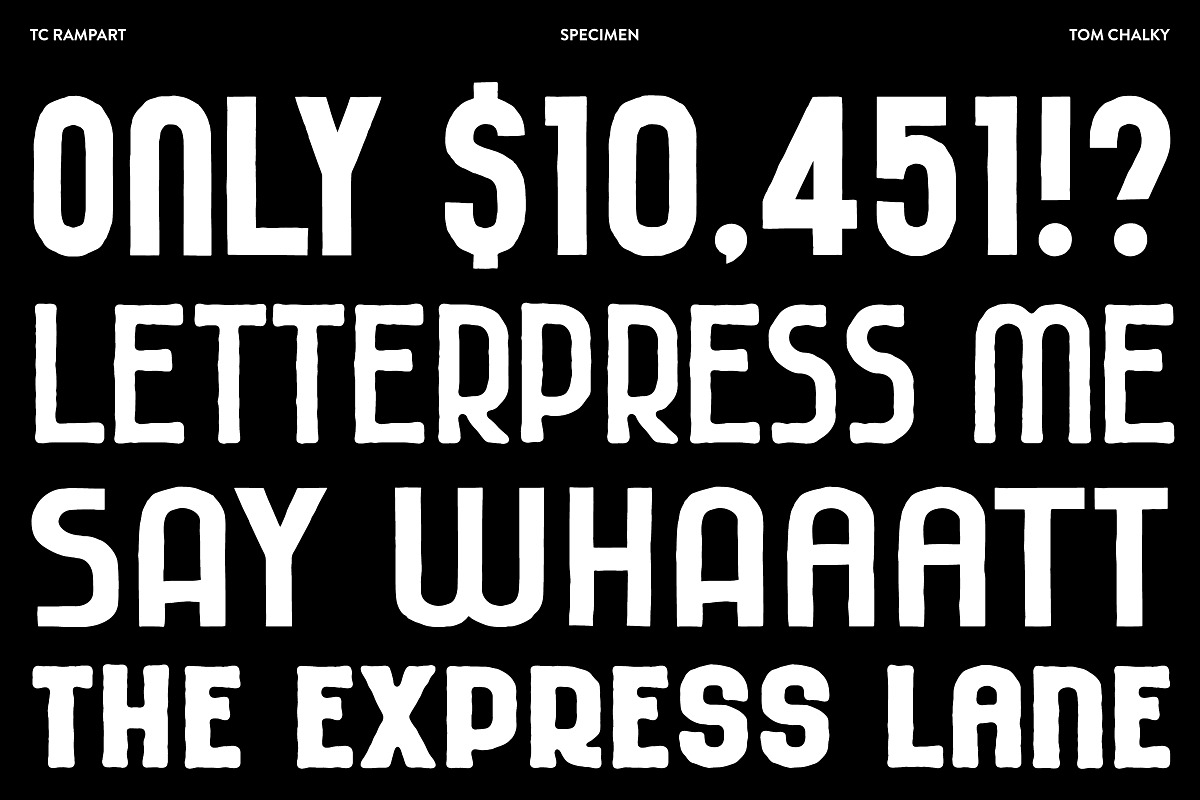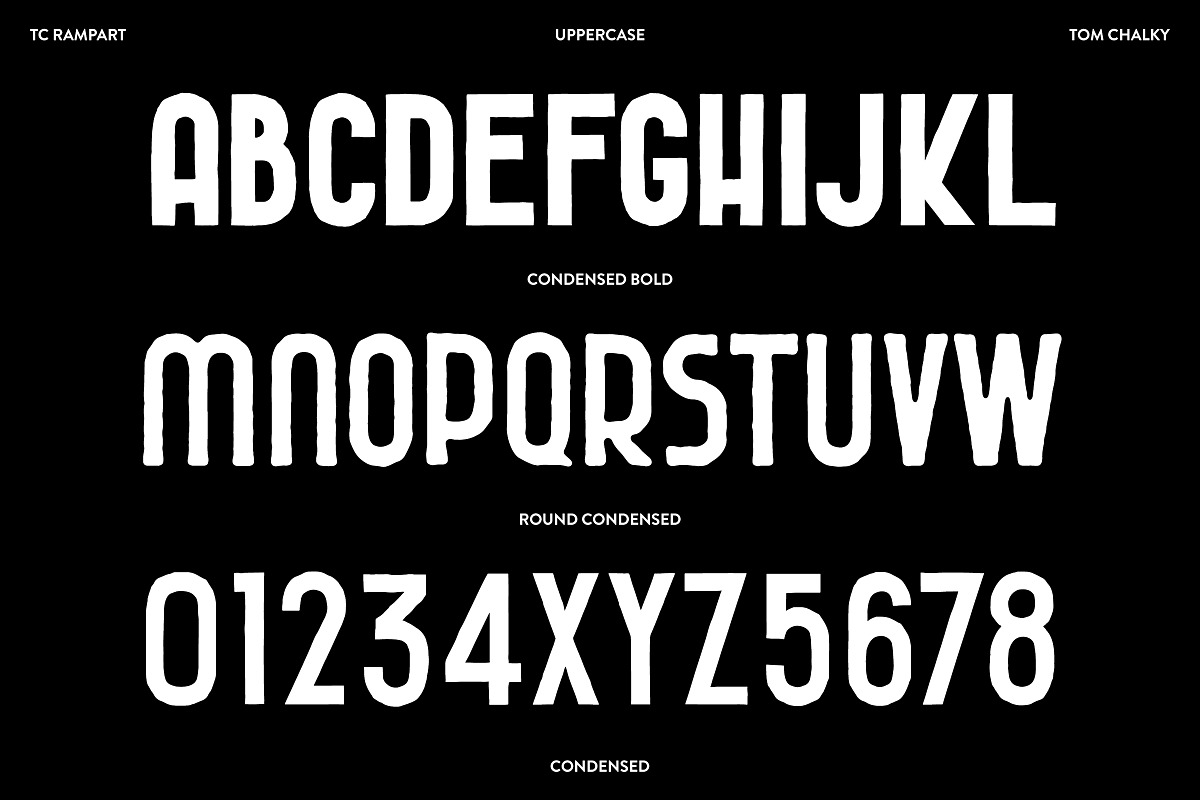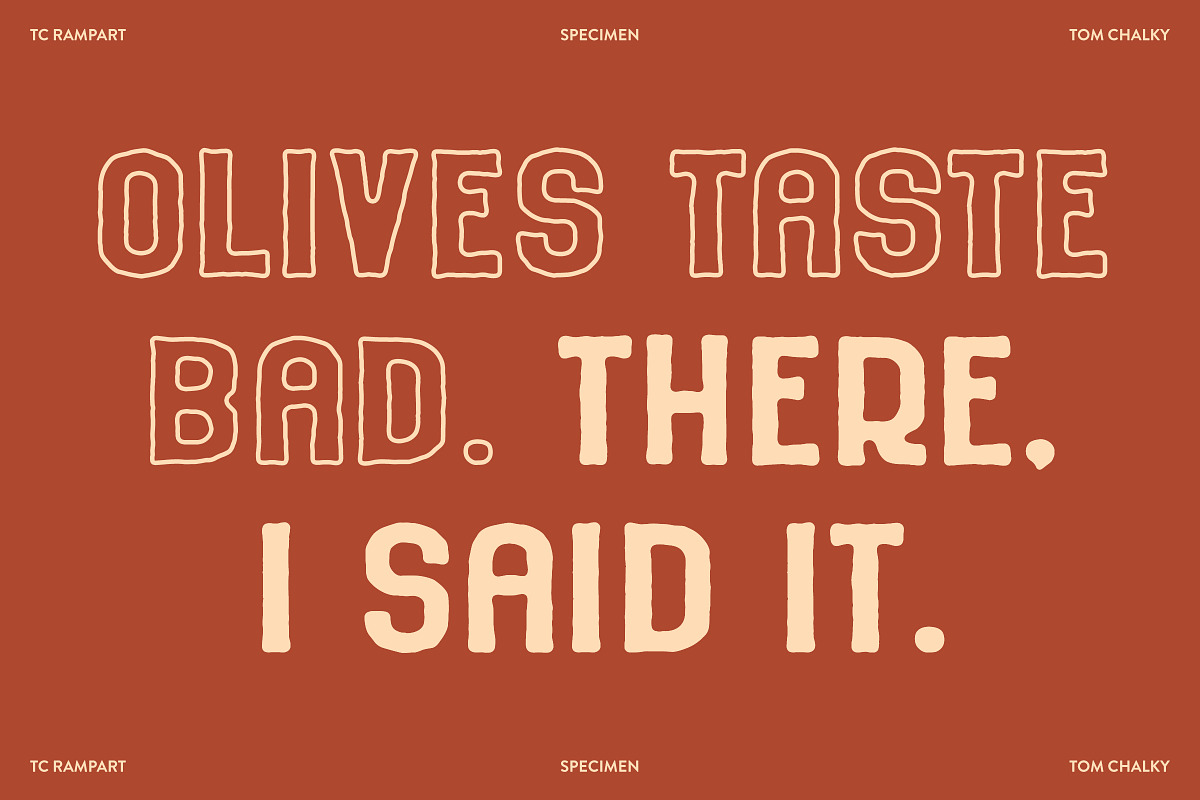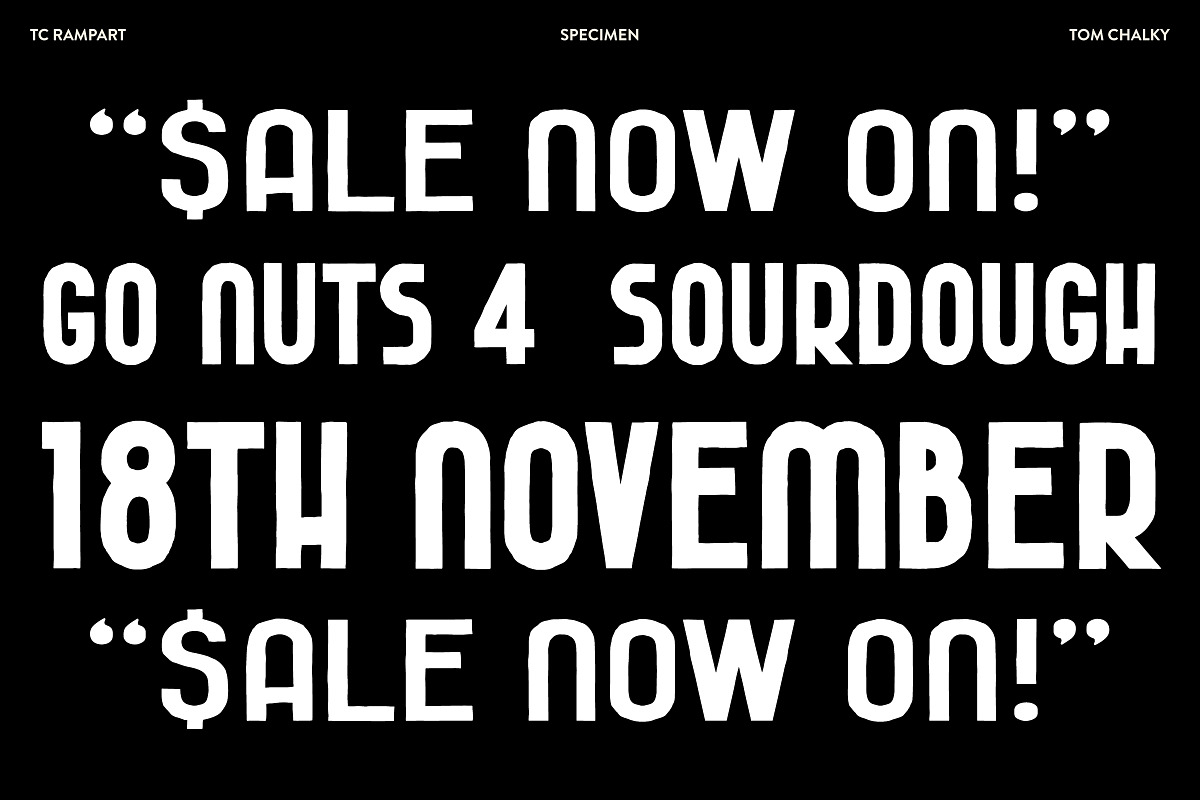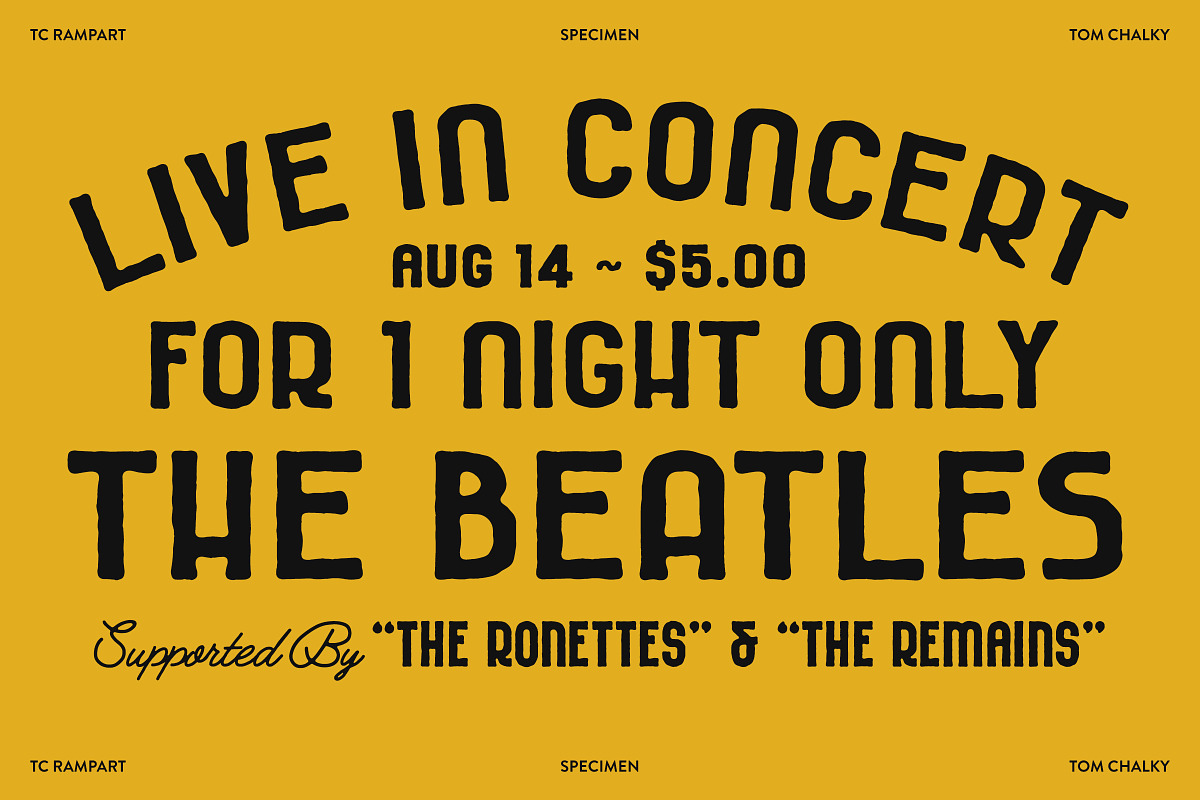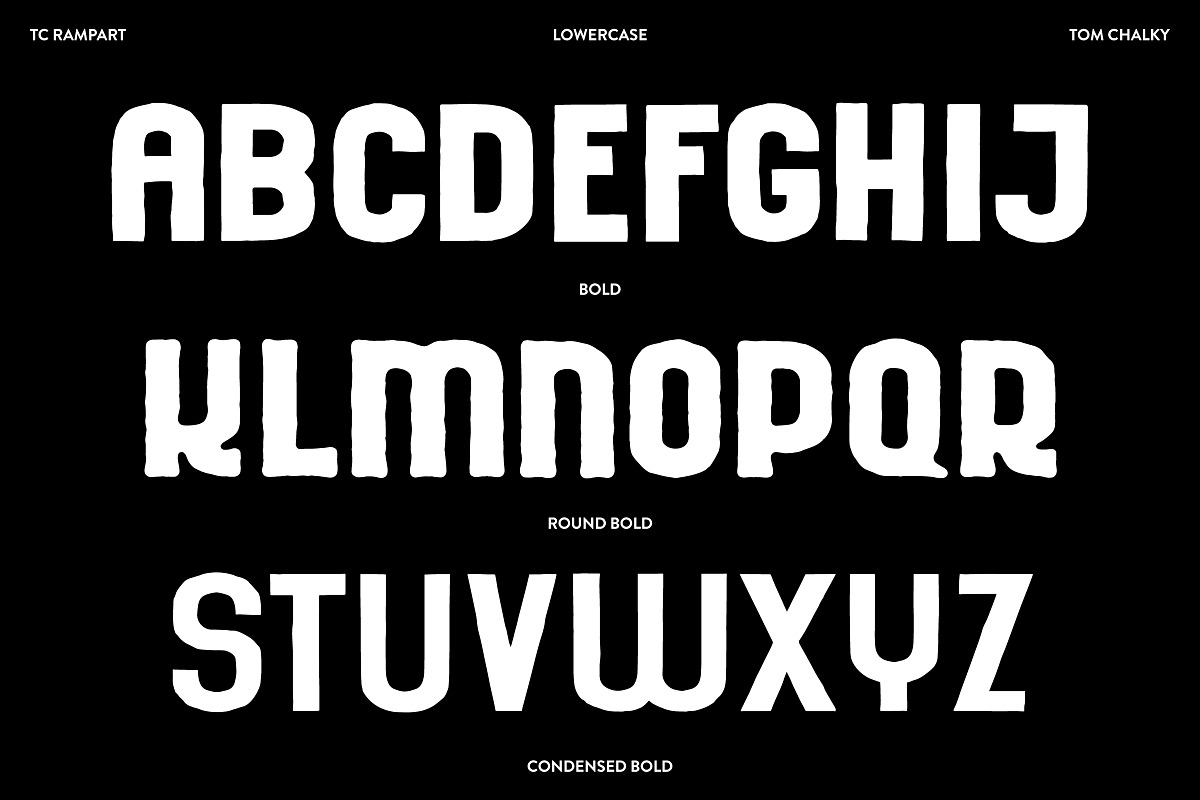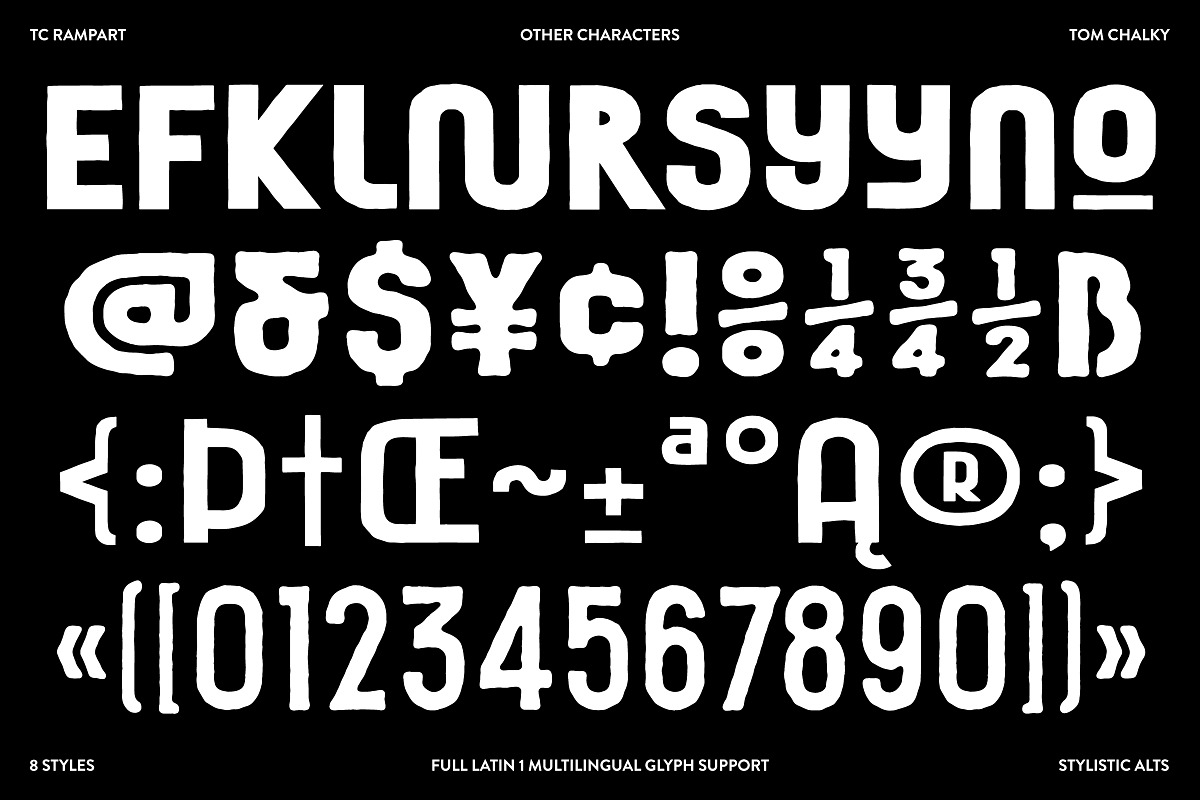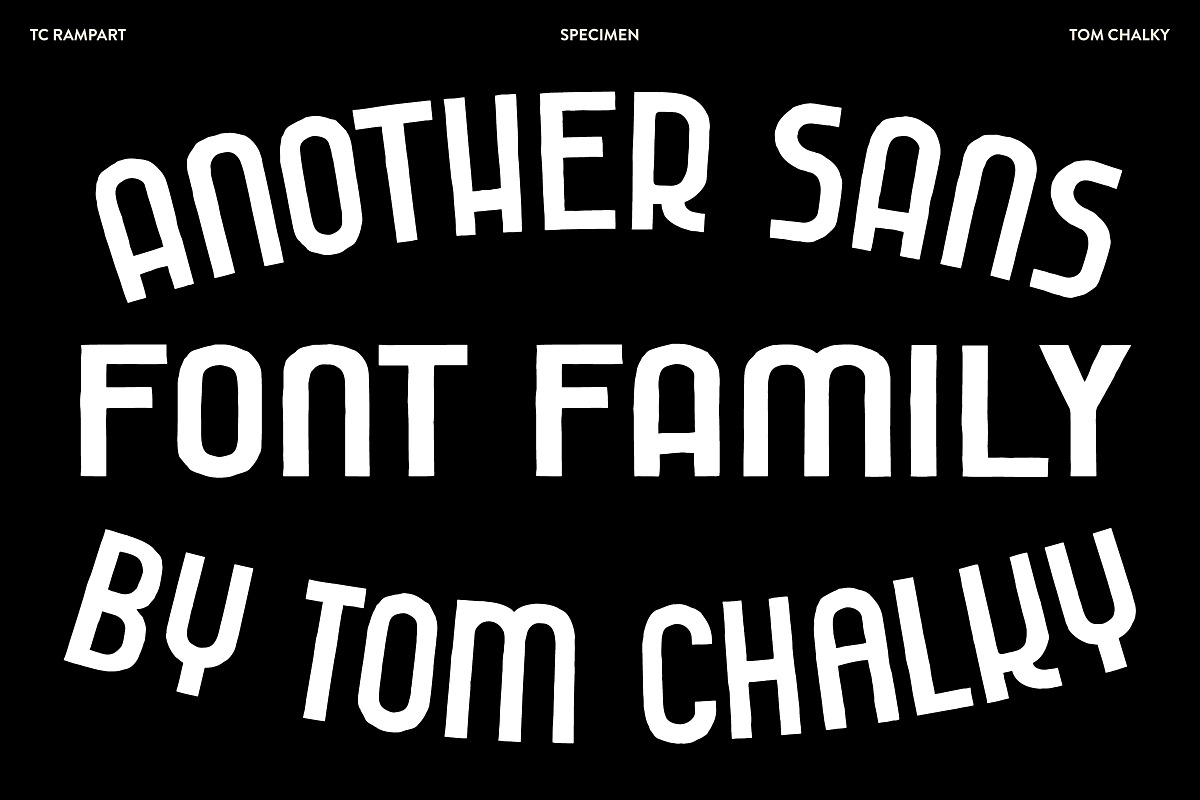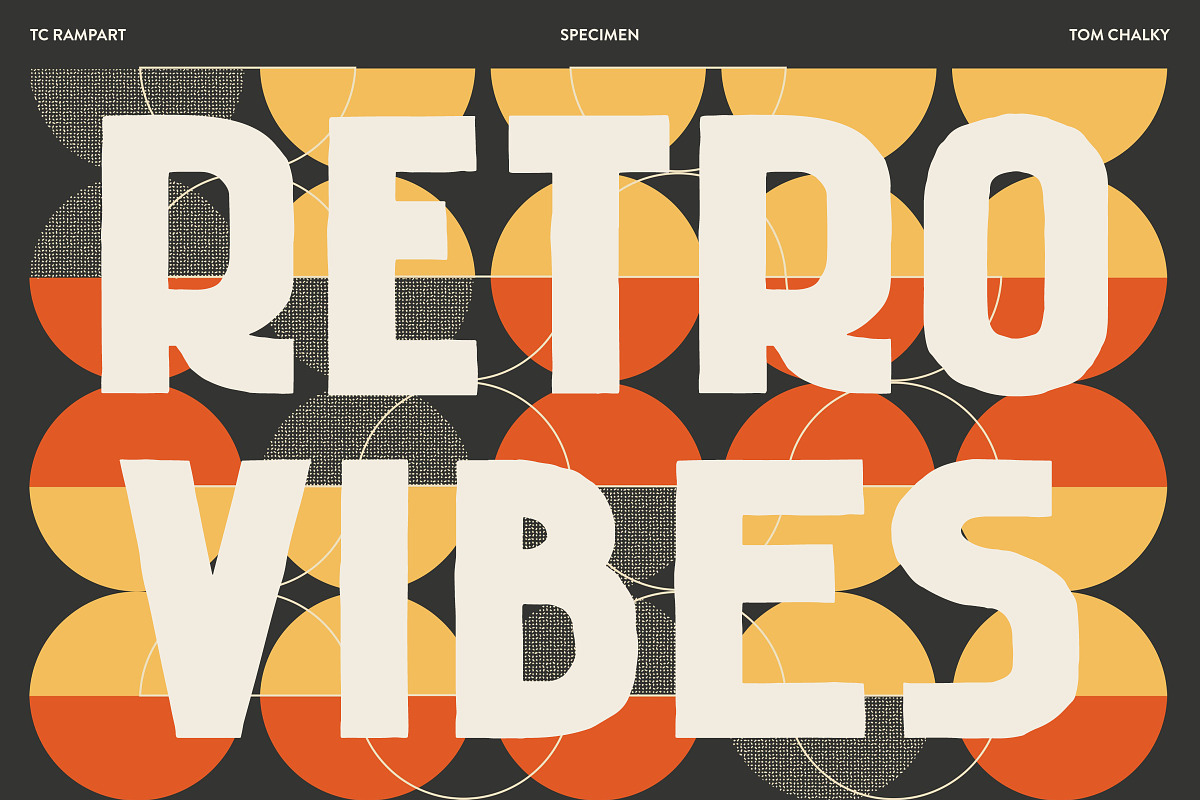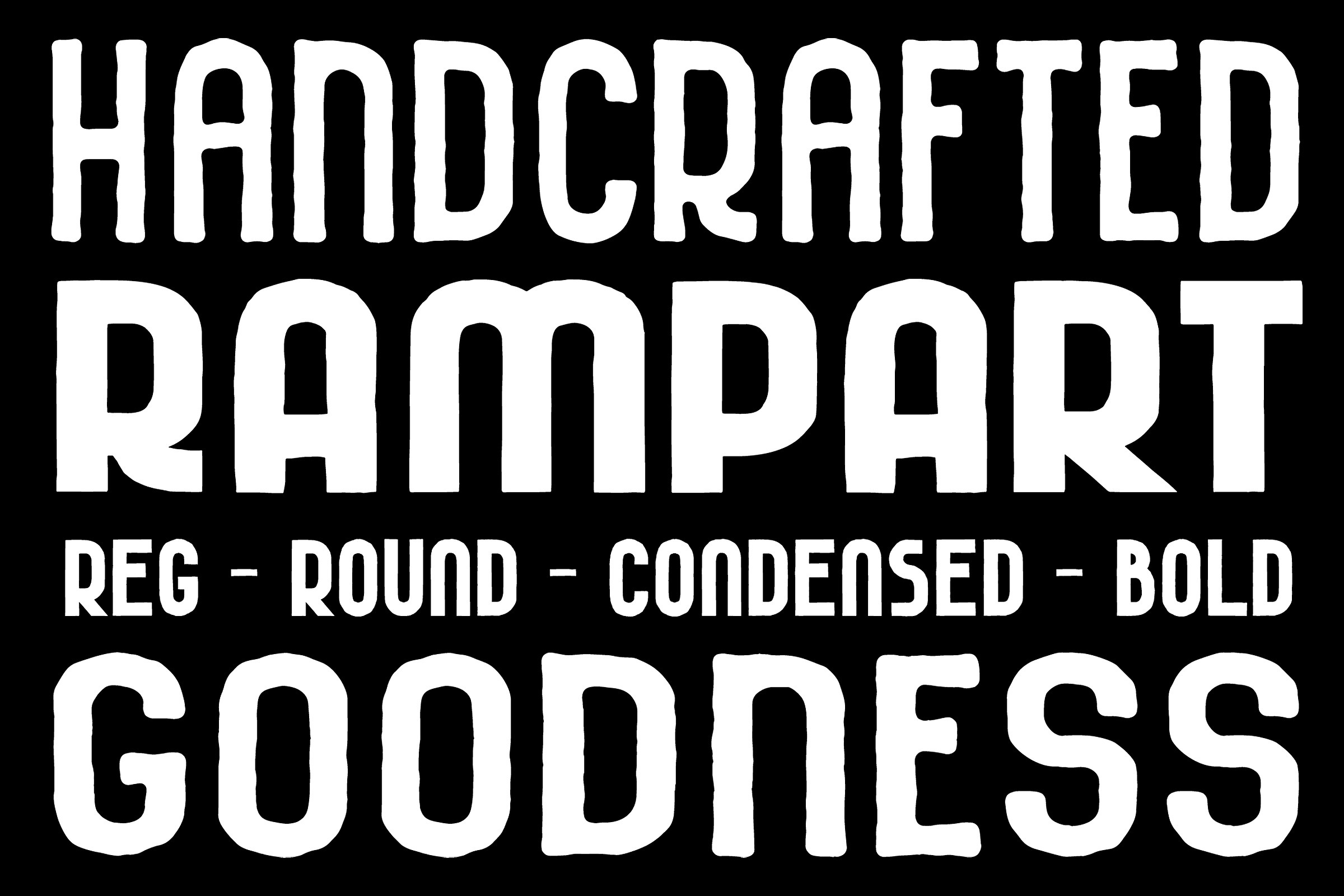
RAMPART - Vintage Sans Serif Font
Introducing Rampart – A Handcrafted Sans Family with Bold Character
Meet Rampart, a handcrafted sans family that bridges rugged authenticity with the clean lines of modern sans-serifs.
With its organic texture and bold design, Rampart is perfect for everything from standout headlines to retro-inspired posters. Featuring multiple styles—Regular, Bold, Condensed, and Round—it's a versatile font for all your creative projects.
Whether you're designing a vintage logo, quirky branding, or promotional materials, Rampart adds a unique touch of boldness and charm.